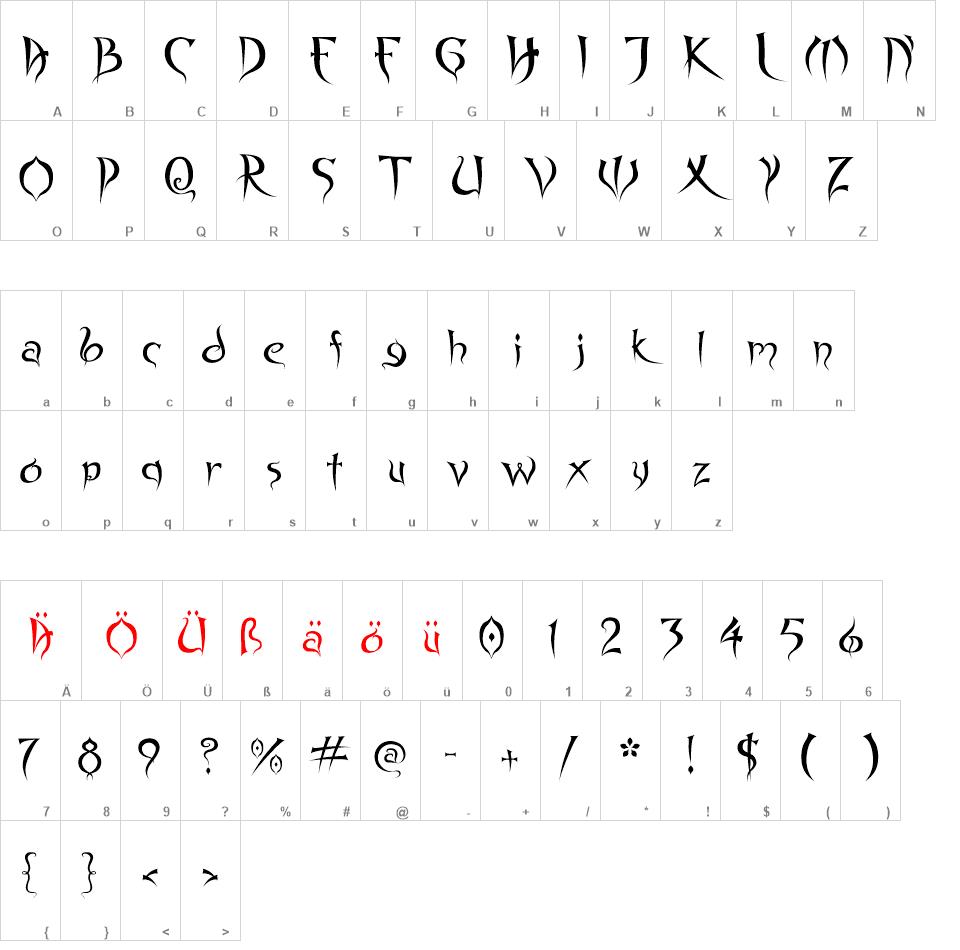
Spyced
Spyced  font
Spyced
Inspired by one of my sisters: her style is a wild mix of punk, gothic, European high fashion, and theatrical. The name came from her dog named "Spyce" - which I felt really captured the essence of this font.
Other visual influences for the shaping of the characters was Indian (not Native American) art, smoke, thorns, spikes, and slashes.
Great for dark, mysterious, exotic, adventurous type projects!